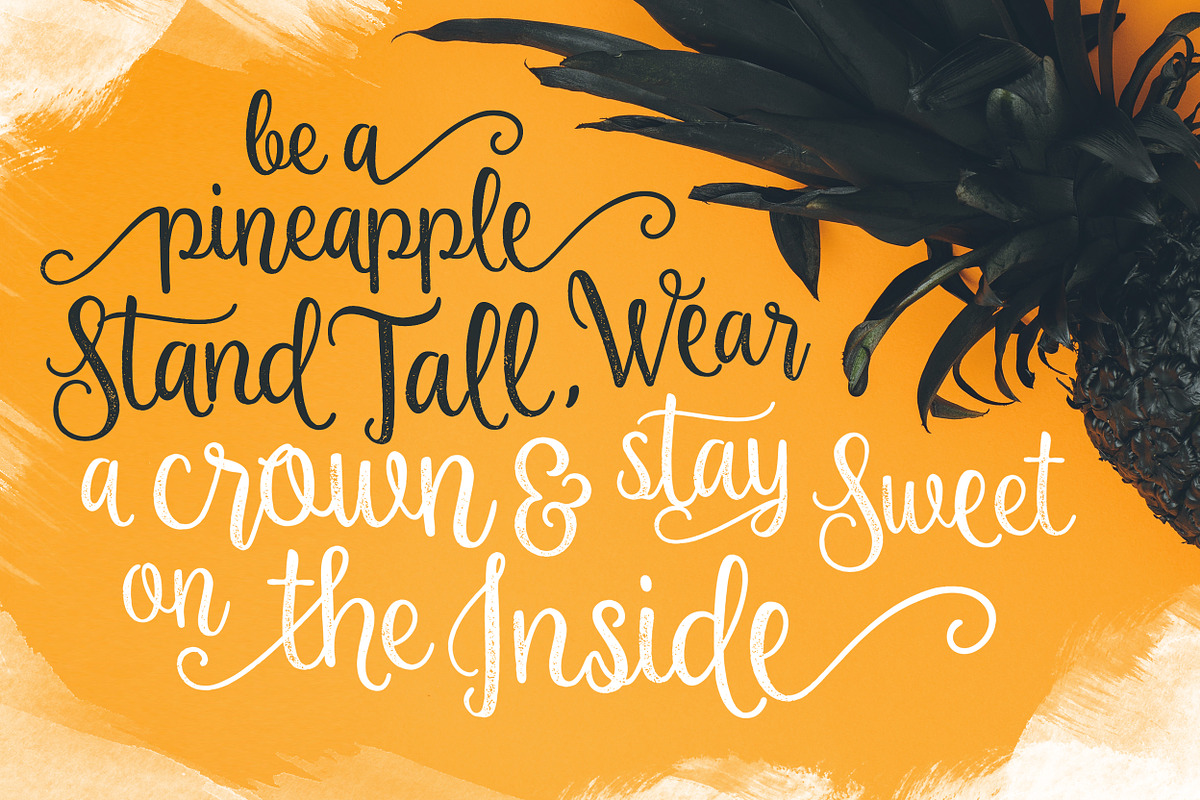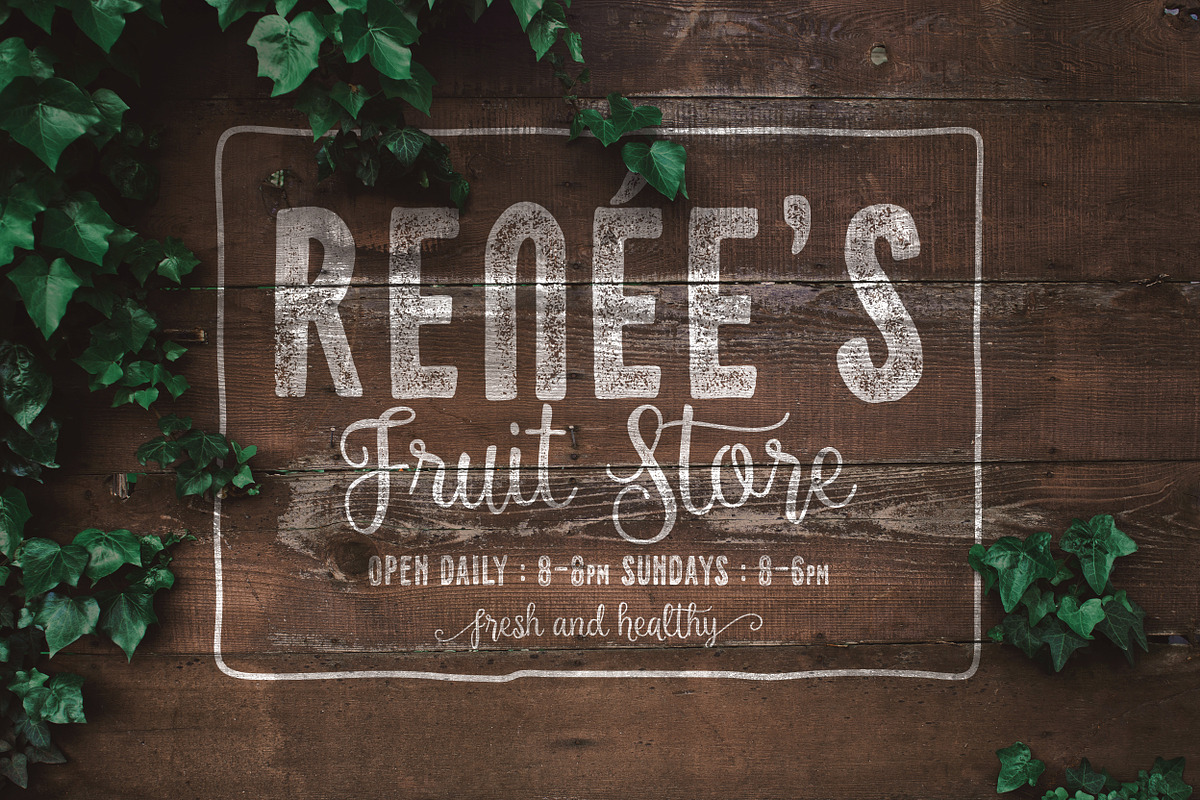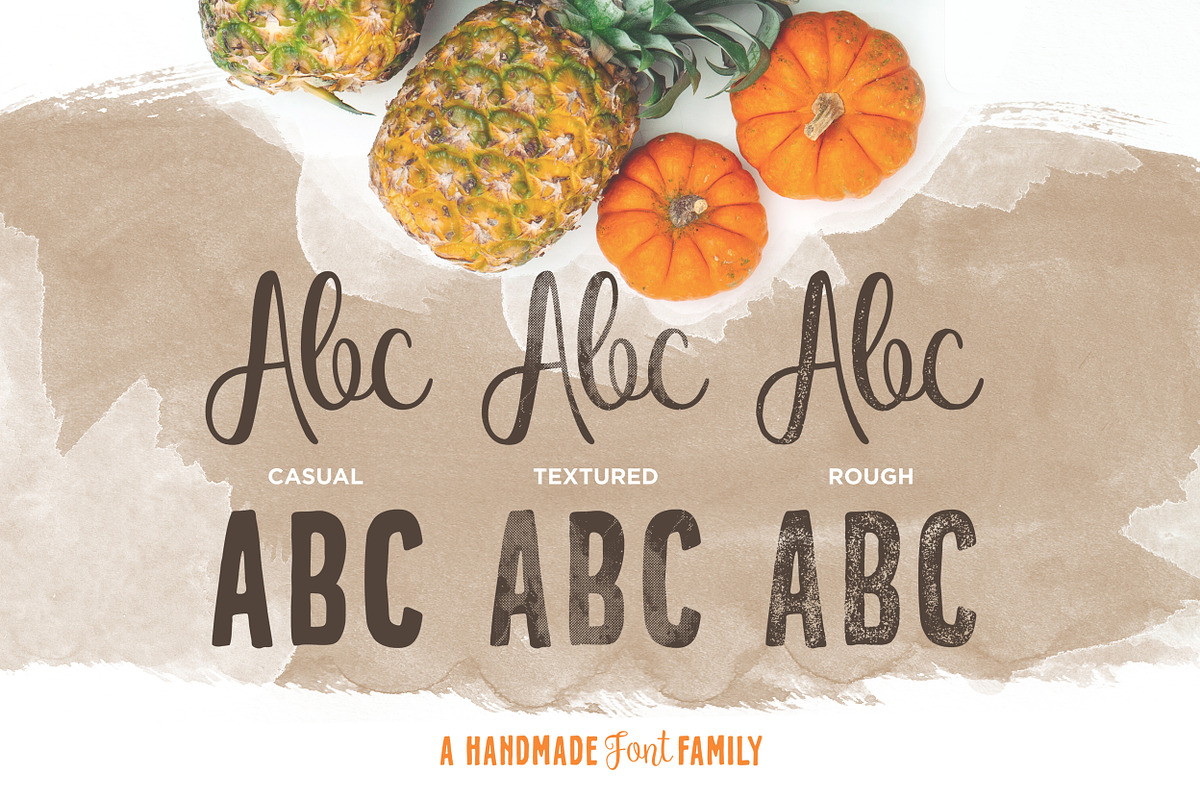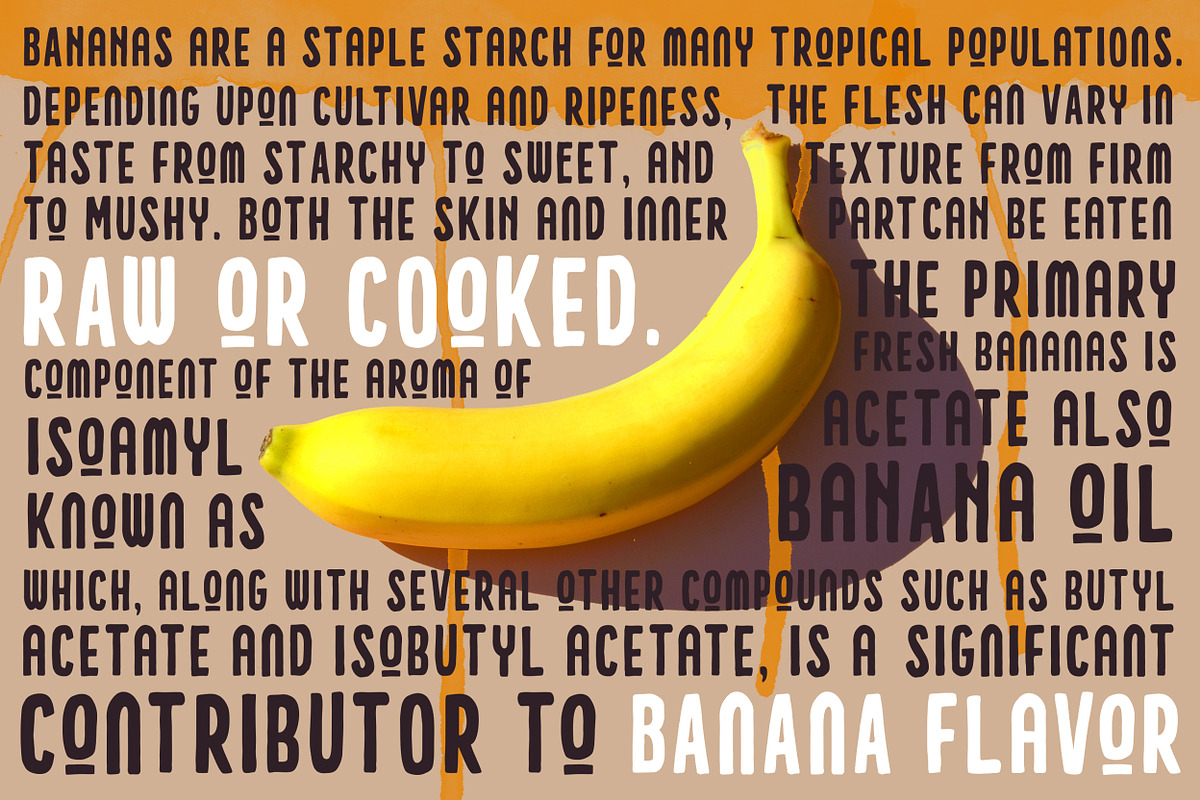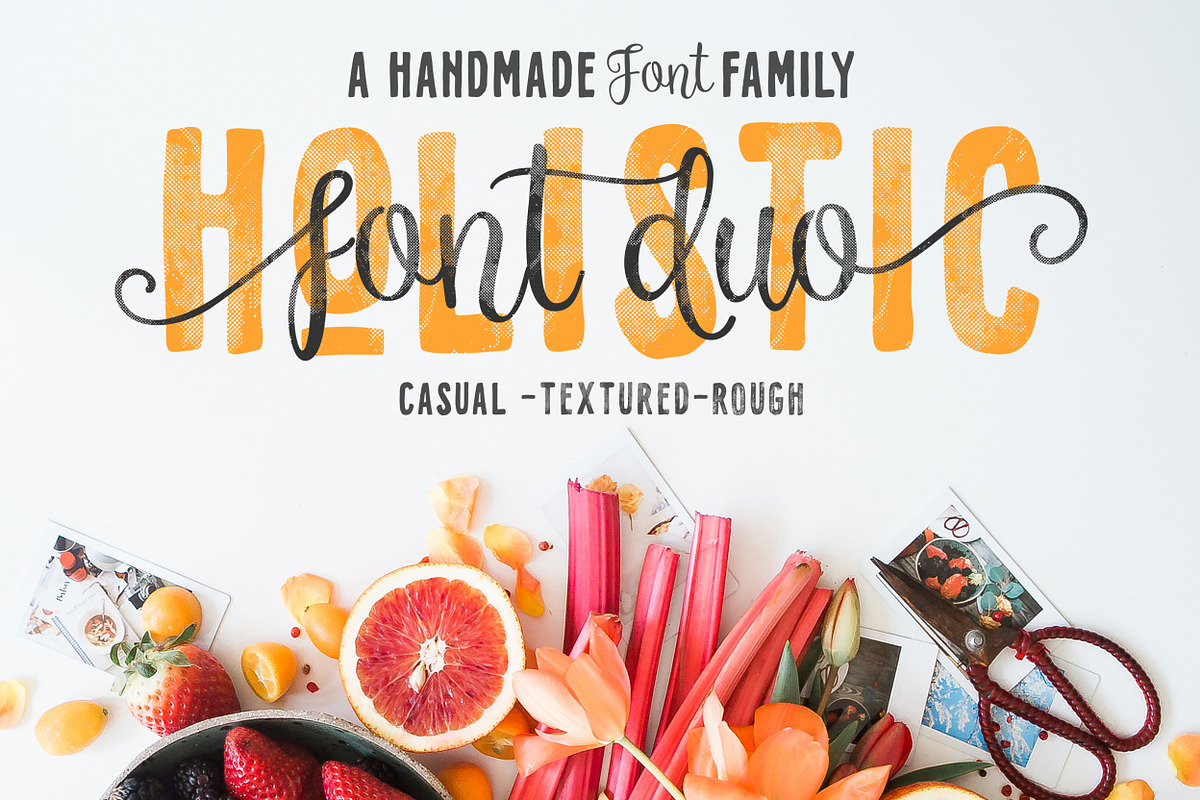
Holistic Font Duo
Pure and natural hand drawn typeface, it's Holistic font! Comes with two casual yet delicate style (script and sans), then wrap in three different look (solid, textured and rough). Holistic Script includes alternative characters, you can play with it to get a bit messy but still pretty. Have fun with these fonts and make a lovely combination for logos, displays, posters and other project that needs natural handwritten work. All in one package to get an organic feeling.
Holistic Script Regular
Holistic Script Textured
Holistic Script Rough
Holistic Type Regular
Holistic Type Textured
- Comes with two casual yet delicate style (script and sans), then wrap in three different look (solid, textured and rough).
- Holistic Script includes alternative characters, you can play with it to get a bit messy but still pretty.
- All in one package to get an organic feeling.
- Holistic Script
- Uppercase & Lowercase
- Numerals & Punctuation
- Holistic Type
- Uppercase & Lowercase
- Numerals & Punctuation